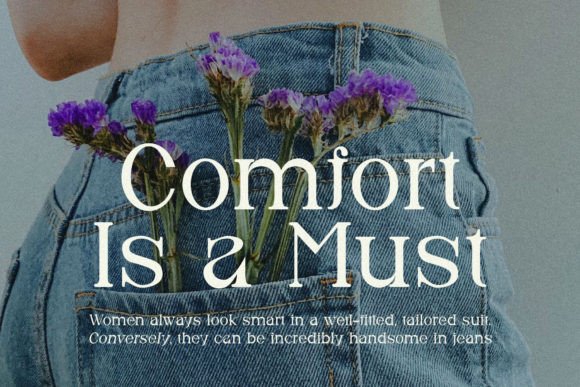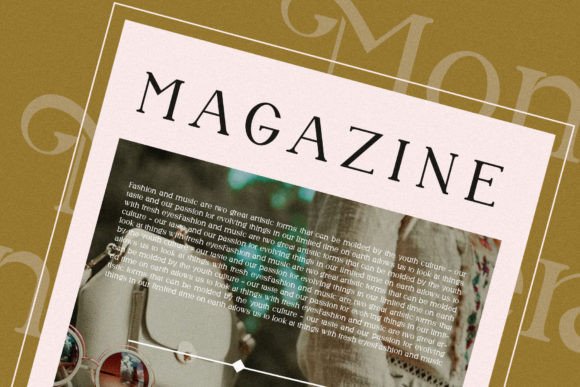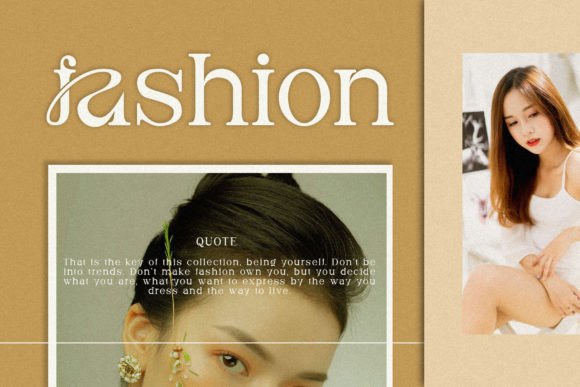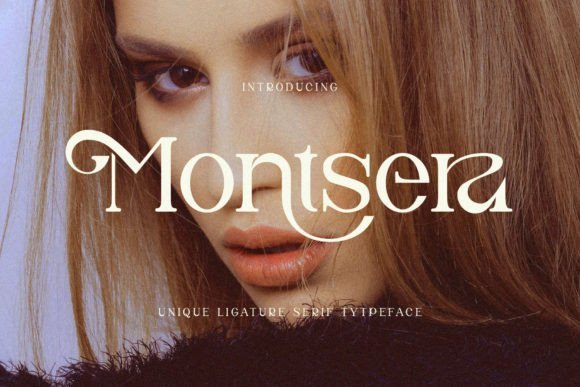
Introduction to Montsera Font
Montsera is an elegant, modern, and classy serif typeface – This font is both modern and nostalgic and works great for logos, magazines, and social media.
Already matched up and ready to be used for your next design For those who need a touch of elegance, style, class, and modernity for your designs, this font was created for you.